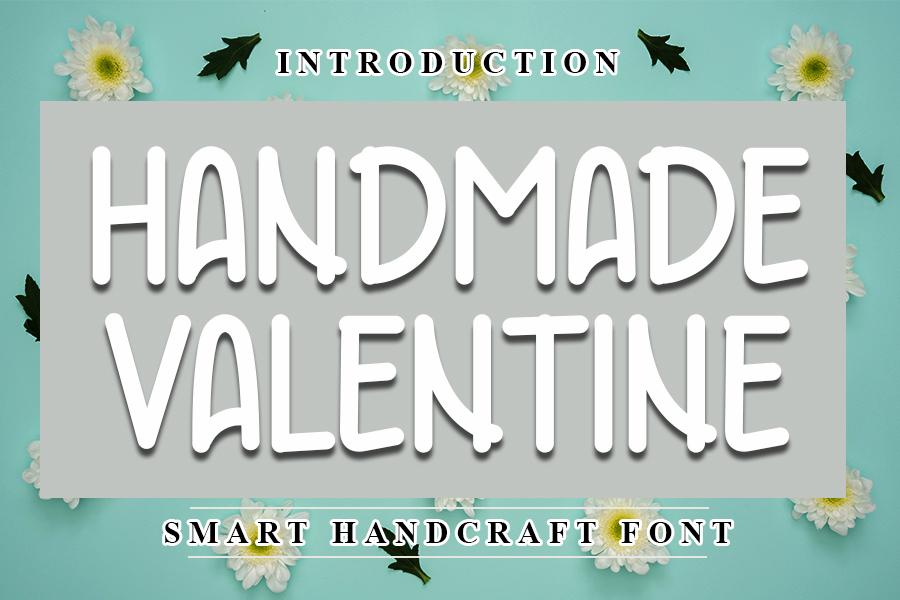
Handmade Valentine Font Description
Handmade Valentine is a beautiful, tall and versatile handwritten font. Suitable to a wide variety of designs due to its neat and simple style, Handmade Valentine has the potential to become your favorite go-to font, no matter the occasion!